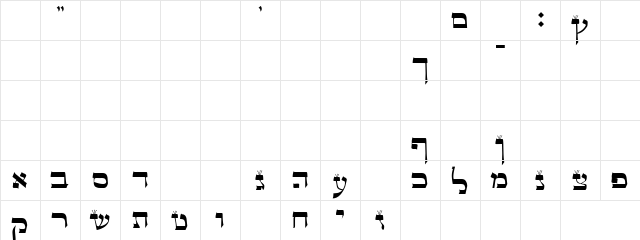
Torah Sofer Regular
Design Context for Torah Sofer Typeface
Torah Sofer takes a measured approach to typography — its balanced proportions and neutral character make it a reliable workhorse for both digital and print work.